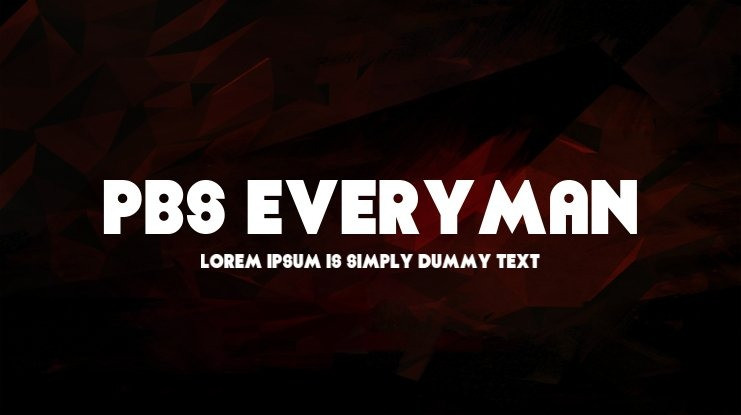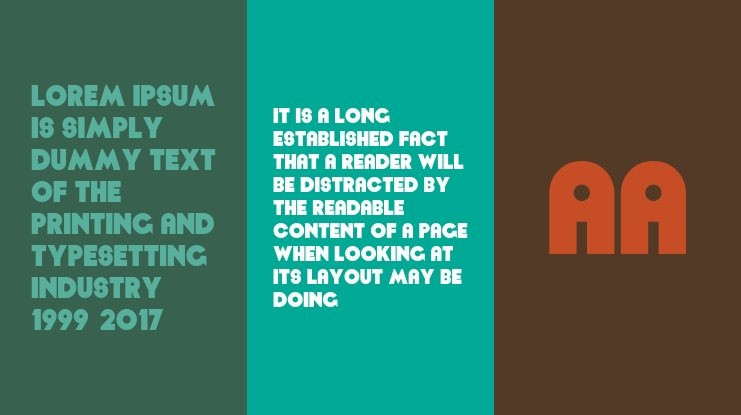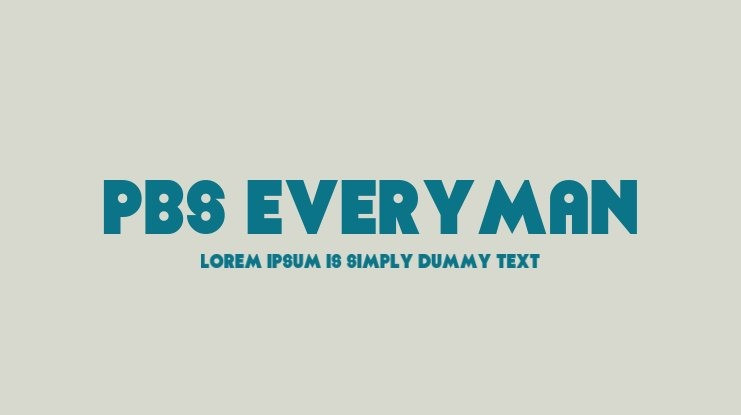
PBS Everyman Sans Serif Font, This font was created for all forms of business and branding such as clothing, logos, skate boards and others according to your needs.